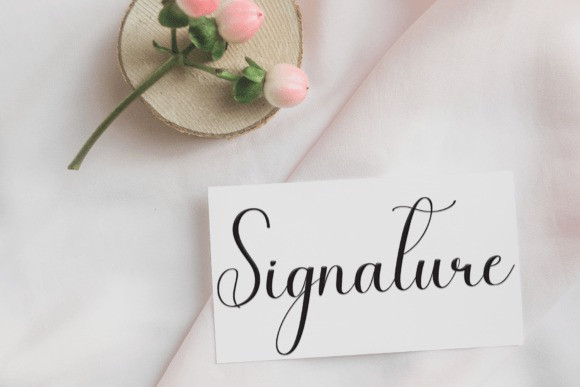
Baby Boys Handwriting Font
Baby Boys Handwriting Font is a sweet and friendly handwritten font. Fresh and casual, this font is ideal for writing wedding invitations, cards, or any other design that might need a lovely touch.